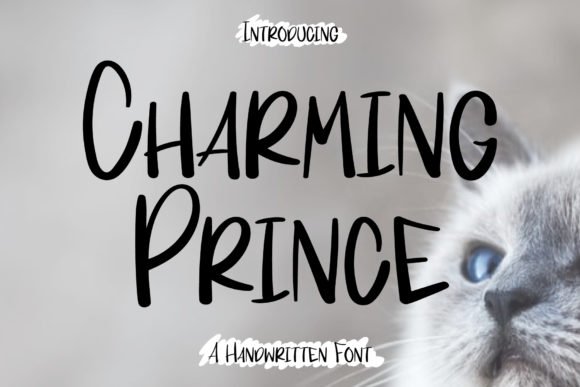
Introduction to Charming Prince Font
Charming Prince is a cute and quirky handwritten font.
It has a sweet and joyful style and it is the ideal font for children related or school projects .
Key Features of Charming Prince Font